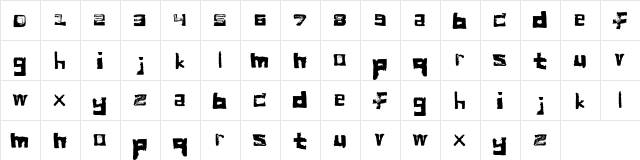
bread bread Font Preview
bread bread
Design Context for bread Typeface
bread is a composed and adaptable typeface that performs quietly and consistently across a wide range of design contexts.